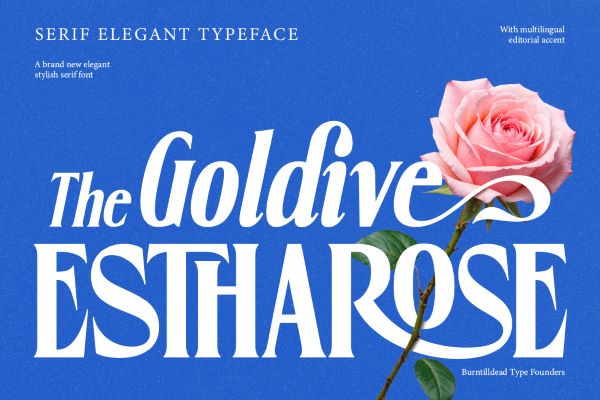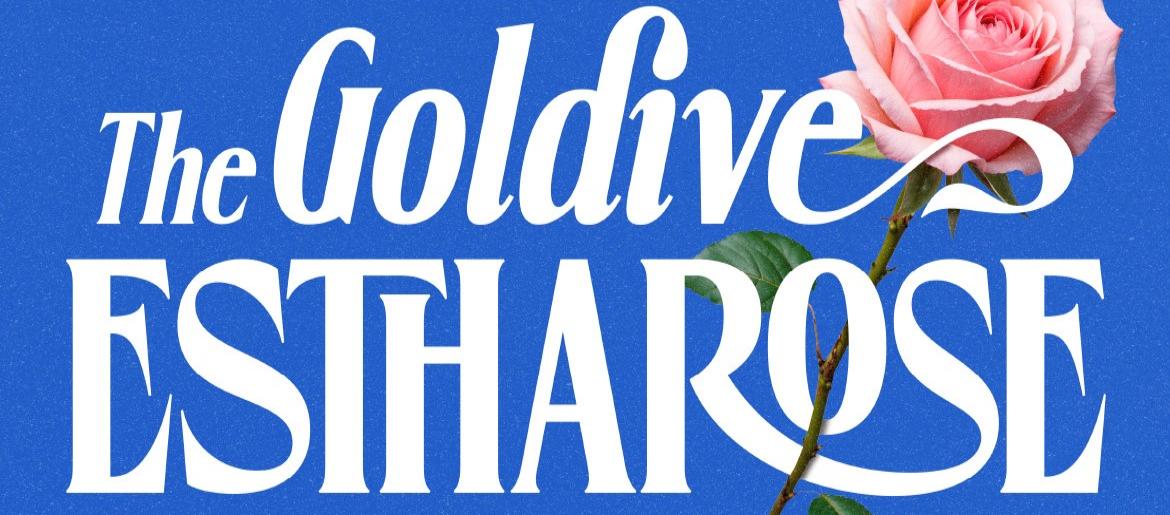
Goldive Estharose Font
Goldive Estharose is a modern elegant serif designed to bring sophistication and timeless editorial charm to any project. Stylish curves and sharp detail work combine in three styles — regular, oblique, and italic — with multilingual support and a full character set including uppercase, lowercase, numbers, and punctuation, making it as practical as it is beautiful for both digital and print use.
A refined serif equally at home in wedding design, fashion branding, and magazine layouts — browse more free fonts like this one in our collection.